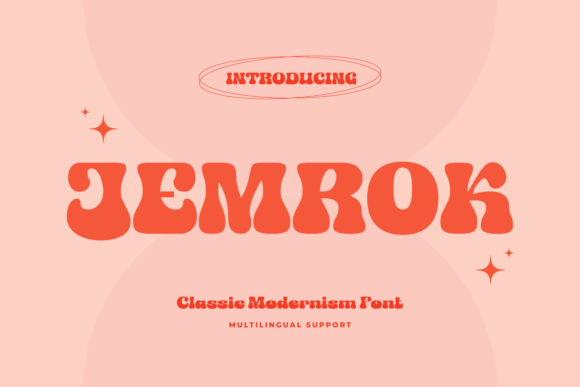
Looking for a font that can elevate your design to the next level? Look no further than Jemrok, the best font for aesthetic lyrics on the market. Created by Productype, this stunning display font embodies a classic modernist style that is perfect for creating stylish and sophisticated designs.
With its beefy and elegant design, Jemrok is sure to catch the eye of anyone who comes across it. The letters are made with cute and adorable shapes, giving the font a unique and professional look that is perfect for a wide range of projects. Whether you are designing logos, creating posters, or designing websites, Jemrok is the perfect choice for any project that requires a classic modernist style.
But what really sets Jemrok apart is its ability to evoke emotions. This font has a way of making words come alive, capturing the essence of any message and conveying it in a way that is both beautiful and meaningful. With Jemrok, you can take your designs to the next level, creating something that truly resonates with your audience.